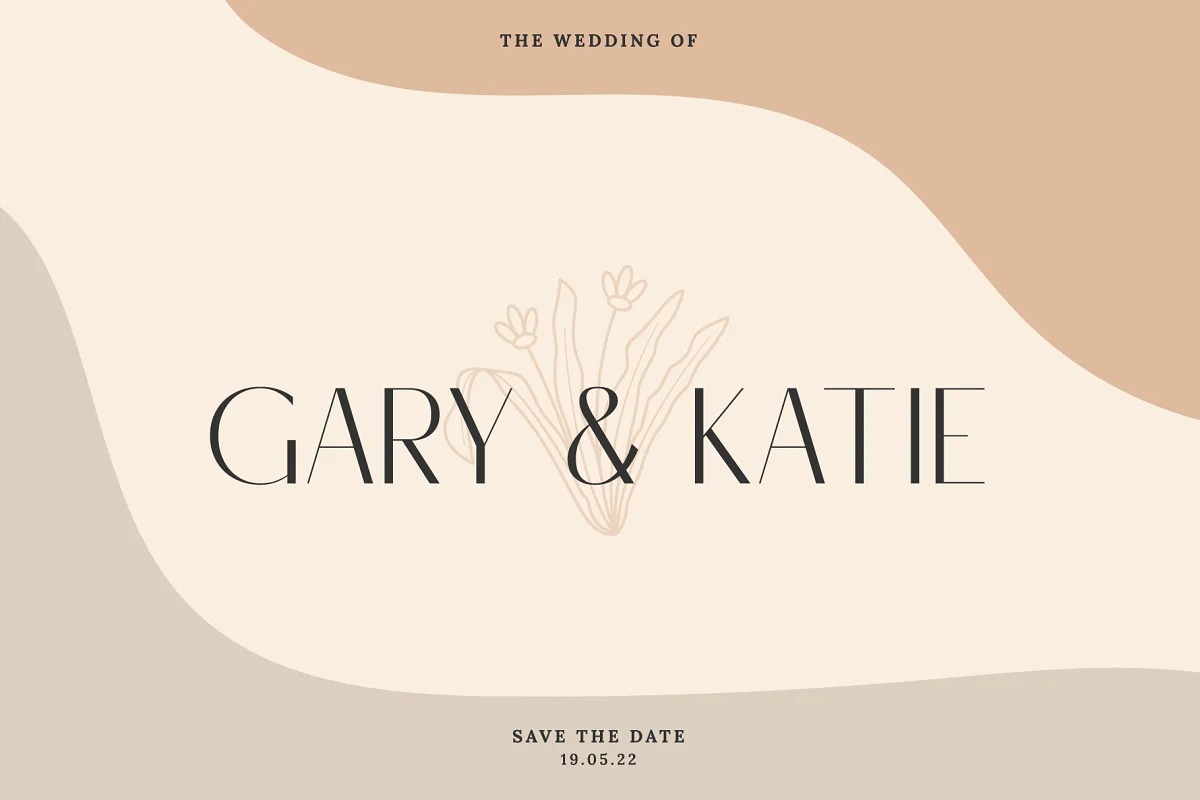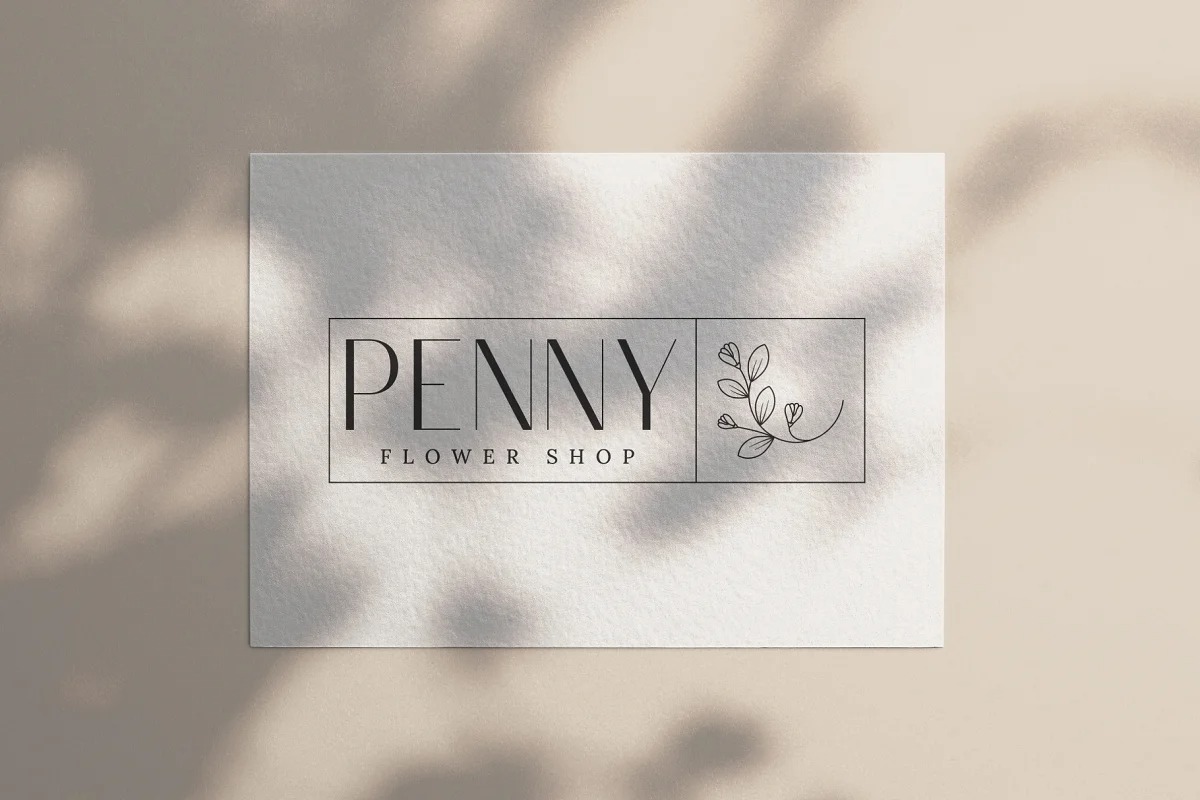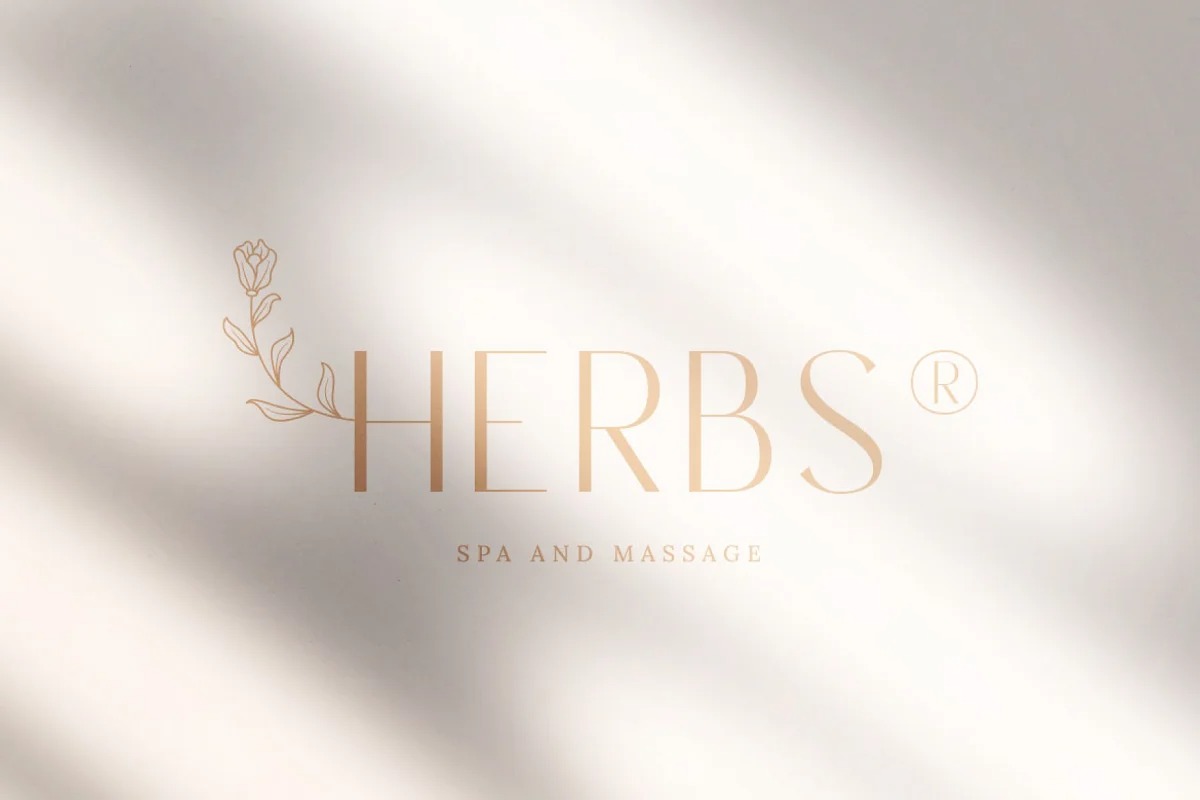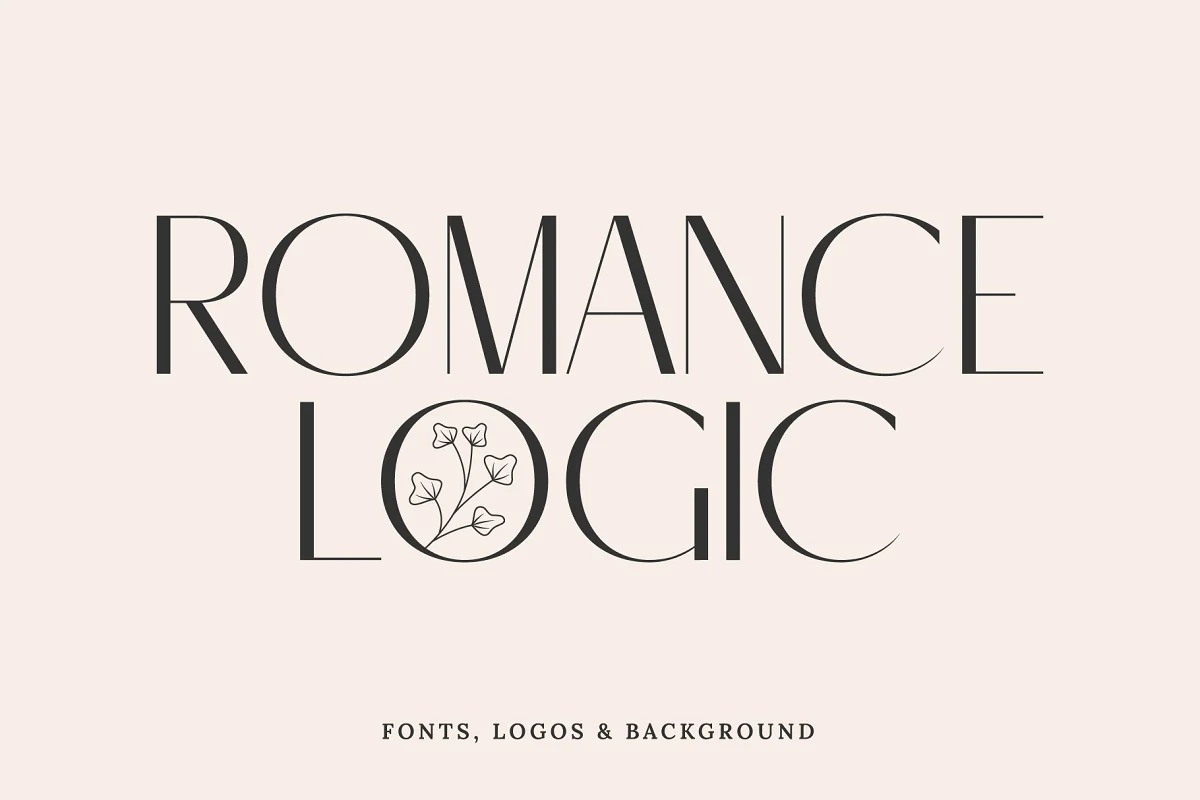
Romance Logic Font
Romance Logic Sans Serif Font
This is a brand new serif typeface created by Prioritype Co with modernity and elegance. It has a classy style with ligatures, alternates, and supports multilingual languages. Sans serif typeface with different widths on the letters C, D, G, O and Q, makes this typeface unique. Plus a bonus logo and background that further supports your work. Suitable for branding designs, logos, creative posts etc.